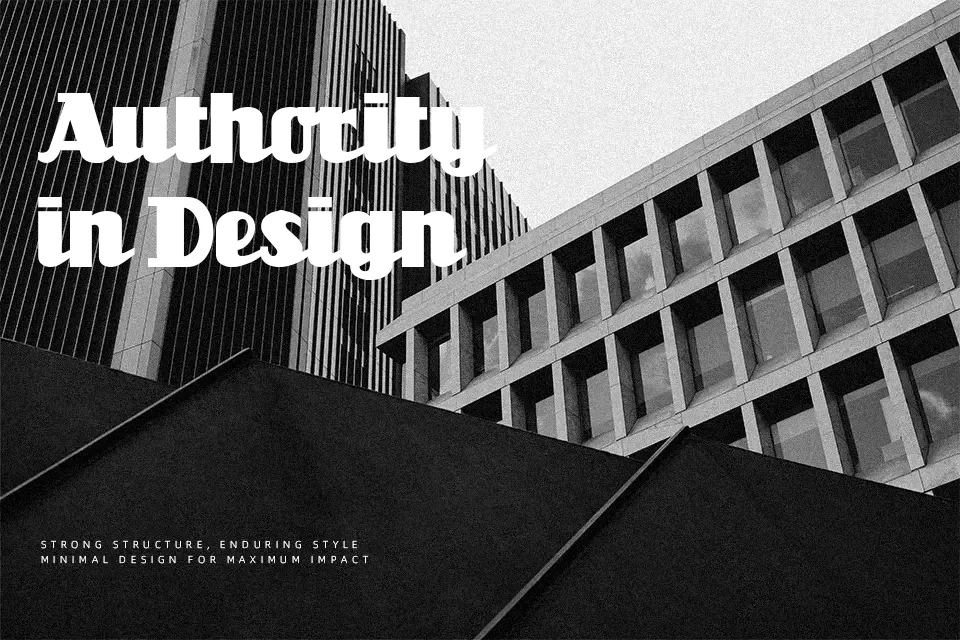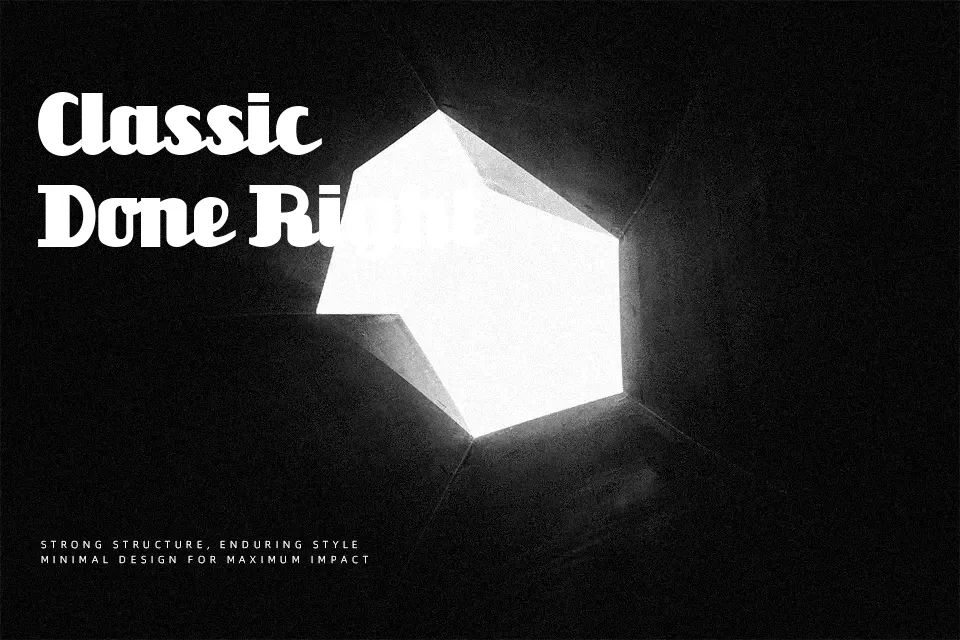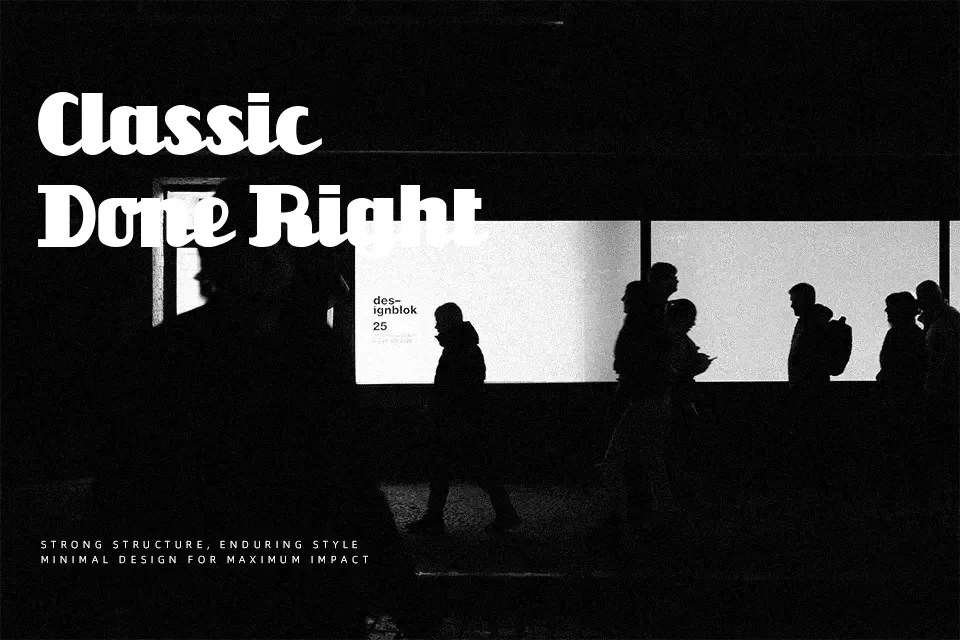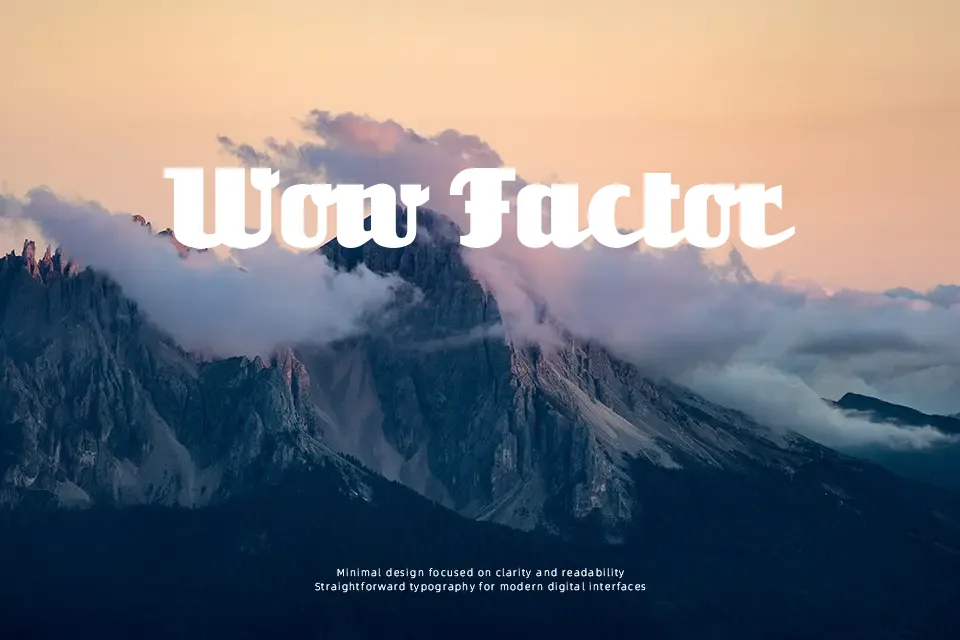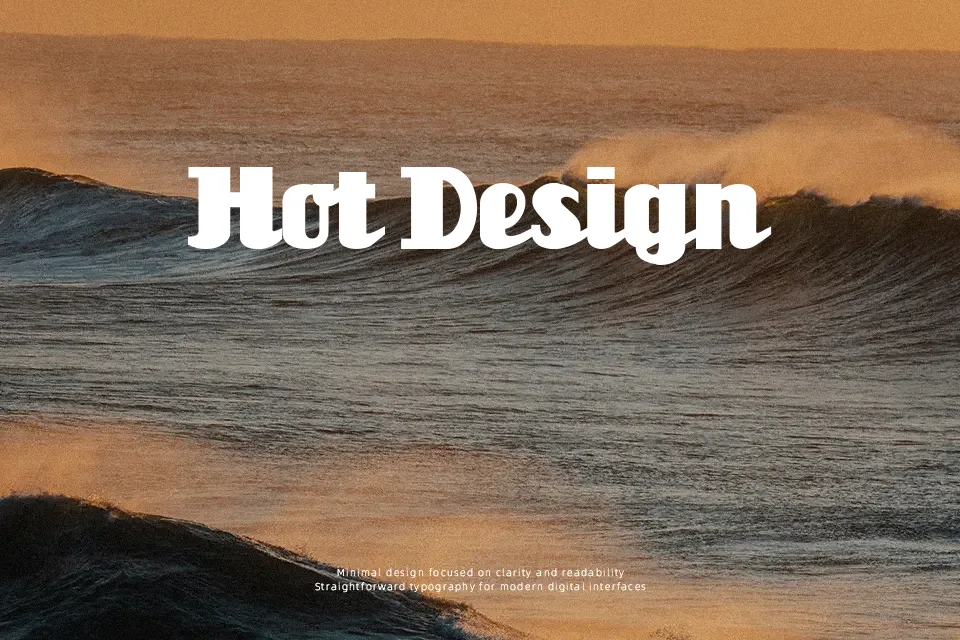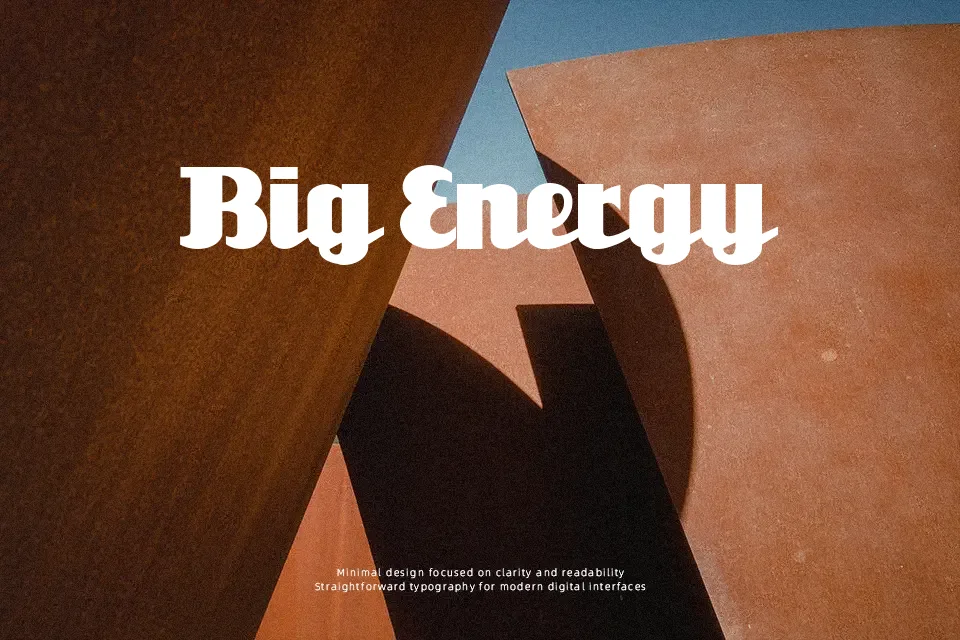
Unicorn NF Font
Designed by Nick's Fonts
Unicorn NF captures attention immediately with its upright, cartoon-tinged retro display letterforms and sturdy, uniform stroke weight. Generous letterforms feature soft exterior curves, quirky angled joins, and compact interior counters that create an energetic visual rhythm in short headlines. Proportions remain wide and stable across both cases, though the dense stroke mass naturally crowds close letter combinations at smaller point sizes. Spacing is comfortably balanced for display arrangements, allowing individual characters to stay distinct without clashing. As a result of this heavy structure, continuous reading comfort drops significantly, making the typeface far less suitable for multi-line body paragraphs.
Best For: vintage event posters, retro product packaging, cartoon merchandise headers, food truck signage
Not Ideal For: multi-line body paragraphs, compact mobile interfaces, formal corporate reports, technical documentation